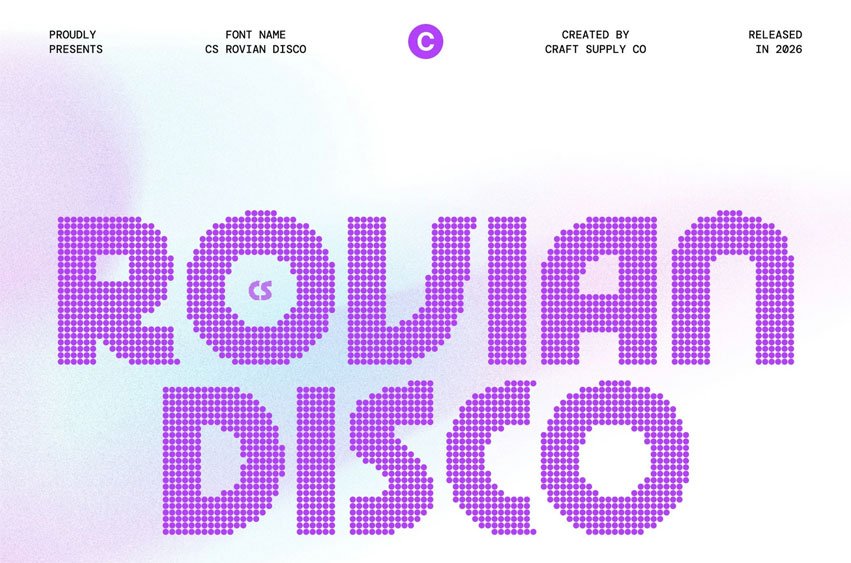
CS Rovian Disco Font Geometric Dot Font with Playful Techno Energy Modern Geometric Style with Disco Sparkle This font transforms the bold modern sans serif into a vibrant dotted display font inspired by the glowing lights and rhythmic energy of the disco era. Each letter is carefully constructed from small circular dots, creating a lively texture that brings sparkle and movement to the typography. This dotted structure enhances the geometric forms while adding a playful and festive visual presence.
Techno Geometry with Rhythmic Dot Patterns The strong geometric foundation of the original design remains intact, preserving its confident structure and modern clarity. The dotted treatment introduces a rhythmic pattern that echoes illuminated dance floors, digital displays, and retro party lights. This combination creates a balance between futuristic precision and cheerful motion.
Futuristic Character with Playful Disco Vibes The techno-inspired design gains an extra layer of personality through the dotted construction. Rounded dots soften the bold shapes, making the font feel energetic, friendly, and visually engaging. This fusion of modern geometry and disco sparkle creates a stylish typeface that feels both futuristic and fun.
Perfect for Bold and Creative Visuals This font works beautifully for posters, tech-inspired branding, music visuals, social media graphics, packaging, and event promotions. Its geometric strength ensures strong readability, while the dotted design adds excitement and personality to modern layouts.